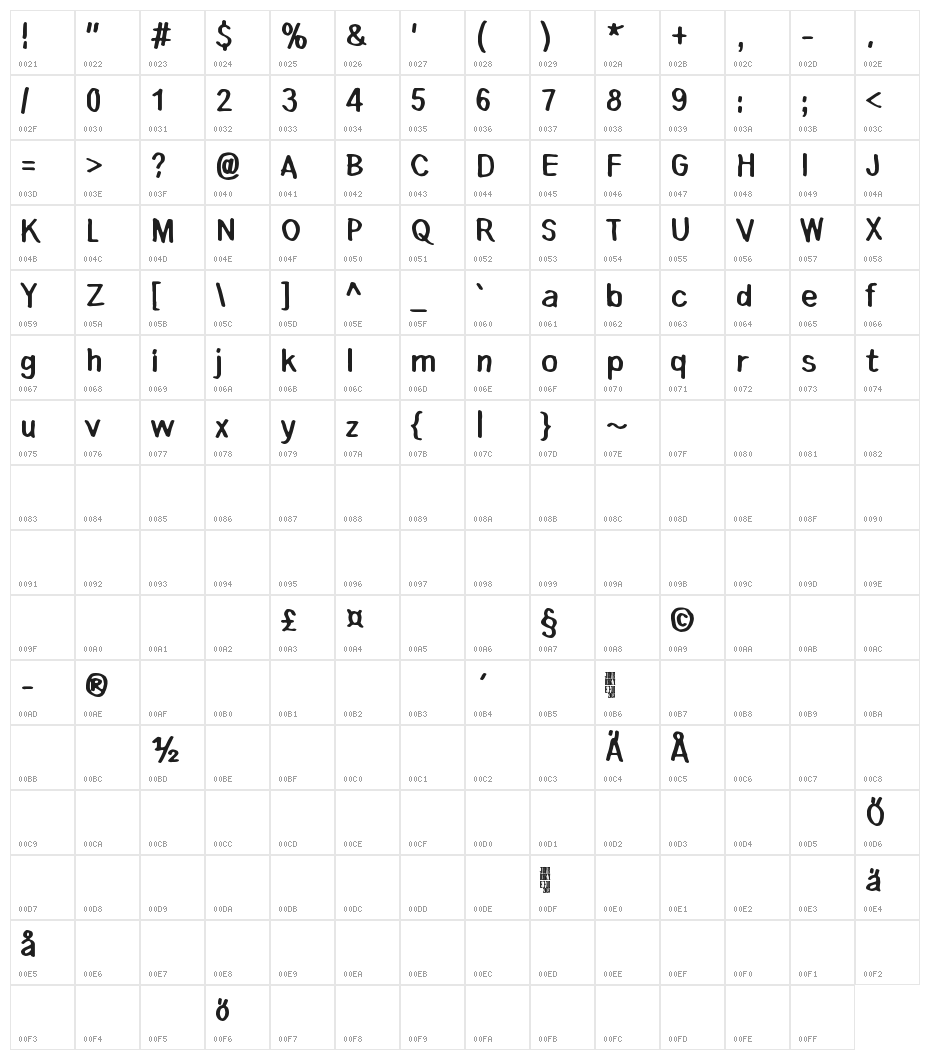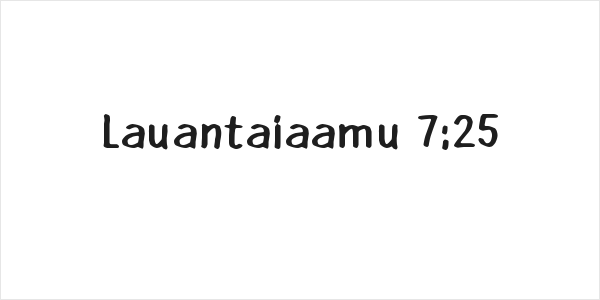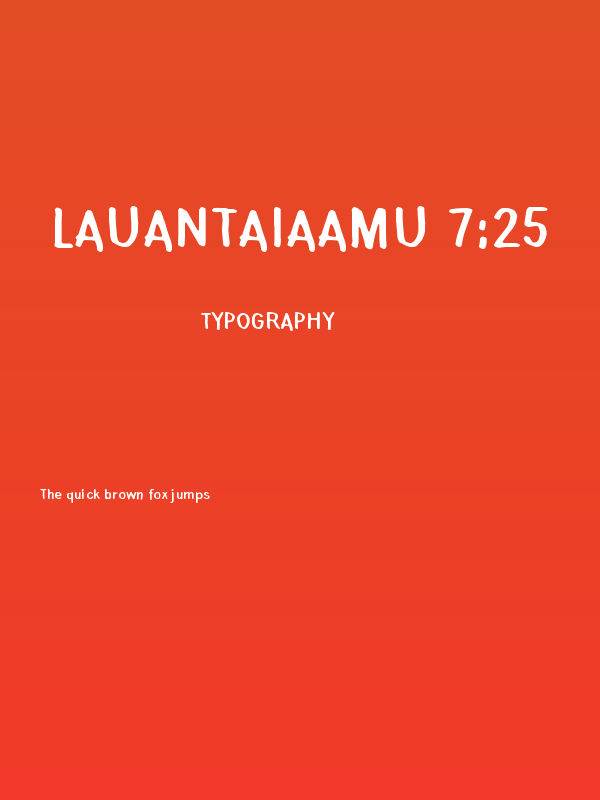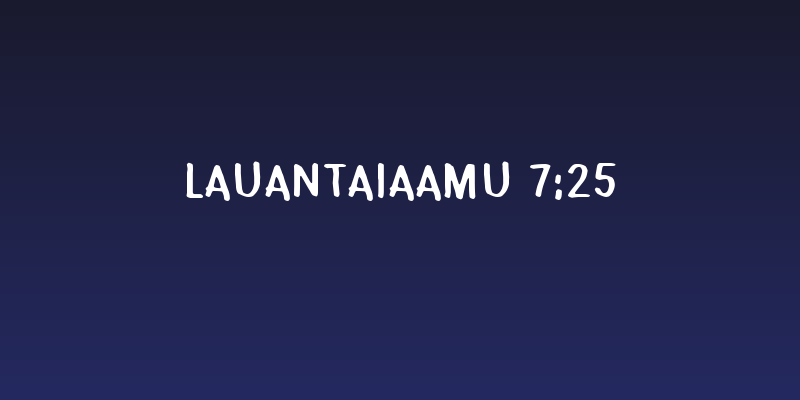
Lauantaiaamu 7:25 Font
Lauantaiaamu 7:25 Description
This font features a playful and informal style with rounded edges and a hand-drawn appearance. The characters are slightly irregular, adding to the casual and friendly feel. Uppercase and lowercase letters maintain a consistent style, with a slight tilt that enhances the handwritten look. The numbers and special characters follow the same design principles, ensuring uniformity across all glyphs. This font is well-suited for projects that require a personal touch or a relaxed atmosphere.
Overall StyleCasual
Use CaseHeadlines, Informal text, Branding
Proposed ProjectsIdeal for children's books, greeting cards, casual branding, and social media graphics.